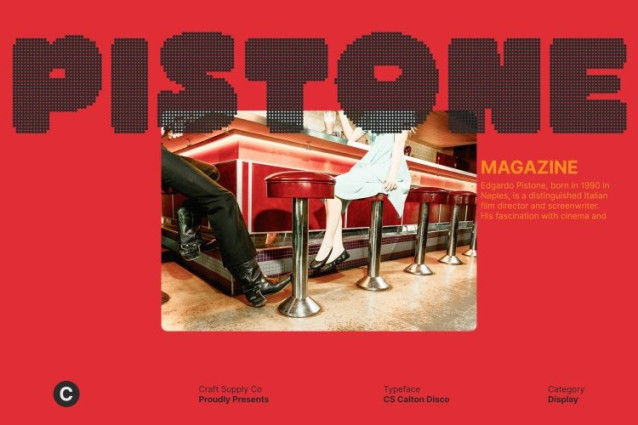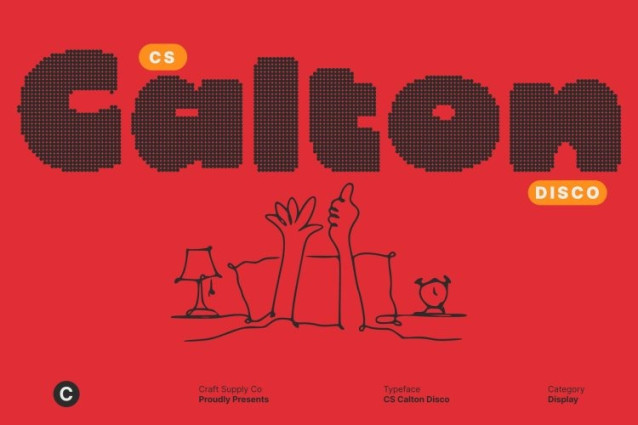
CS Calton Disco Font
CS Calton Disco Font This is a bold display sans serif font crafted to command attention with unstoppable force. Built on powerful strokes and confident letterforms, this typeface delivers maximum visual impact while radiating modern disco energy. Inspired by flashing lights, loud sound systems, and fearless expression, it transforms bold typography into a statement of presence, rhythm, and confidence.
Strong Letterforms with Energetic Simplicity
Each character is designed with solid structure and clean geometry, ensuring clarity even at extreme sizes. While its bold construction delivers authority, subtle disco-inspired flair adds movement and excitement giving the font a lively, expressive personality. The result is a balance of raw strength and modern simplicity that feels dynamic, stylish, and unapologetically bold.
Modern Boldness with Festive Character
This font goes beyond traditional bold fonts by introducing a sense of celebration and visual rhythm. Its clean forms keep it professional and versatile, while its energetic attitude makes it perfect for designs that want to feel alive, loud, and memorable. This fusion allows the font to perform equally well in sleek branding or vibrant, party-driven visuals.
Perfect for Branding, Posters, and Power Displays
Designed for high-impact applications, excels in headlines, logos, posters, signage, packaging, and promotional campaigns. Its commanding presence ensures your message is seen instantly, while its modern disco spirit delivers a fearless, energetic impression.